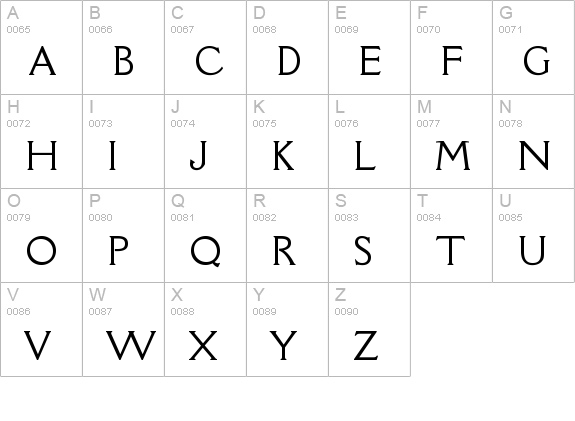
Della Robbia font is a charming and elegant typeface that exudes sophistication and timelessness. Its delicate curves and graceful lines make it perfect for adding a touch of class to any design project. The soft serifs and flowing strokes give Della Robbia a sense of warmth and friendliness, making it a versatile choice for a wide range of applications. Best of all, Della Robbia font is completely free to download at FontsMarket.com. This means you can easily add this beautiful typeface to your collection without any cost or hassle. Whether you're working on a wedding invitation, a branding project, or any other creative endeavor, Della Robbia font will bring a touch of elegance and style to your work. Don't miss out on this fantastic opportunity to enhance your designs with this lovely and free font.